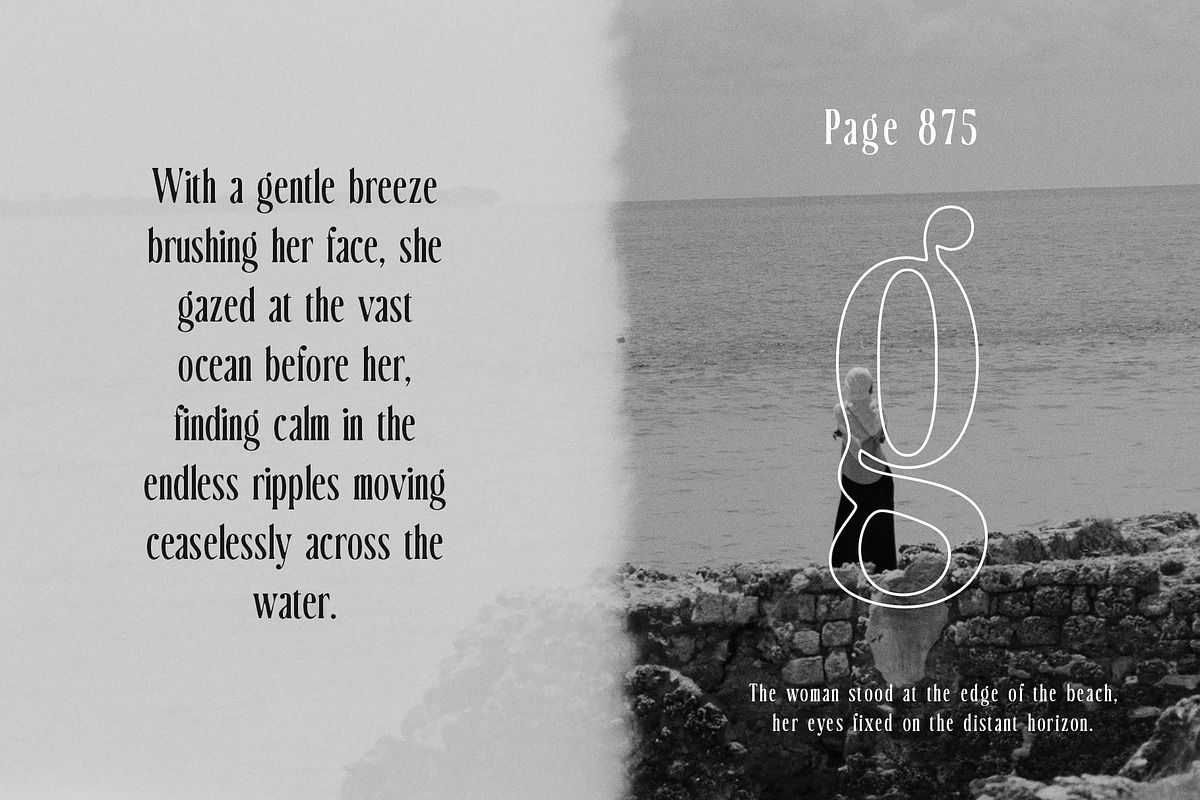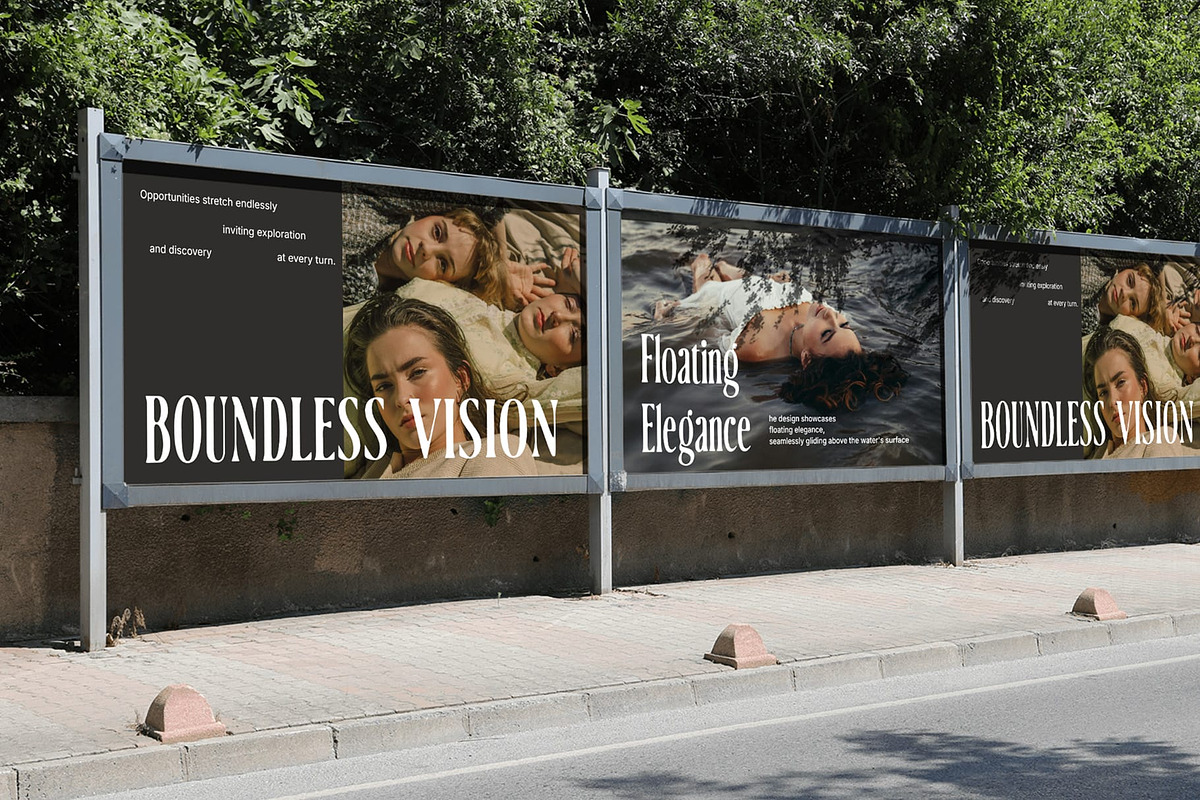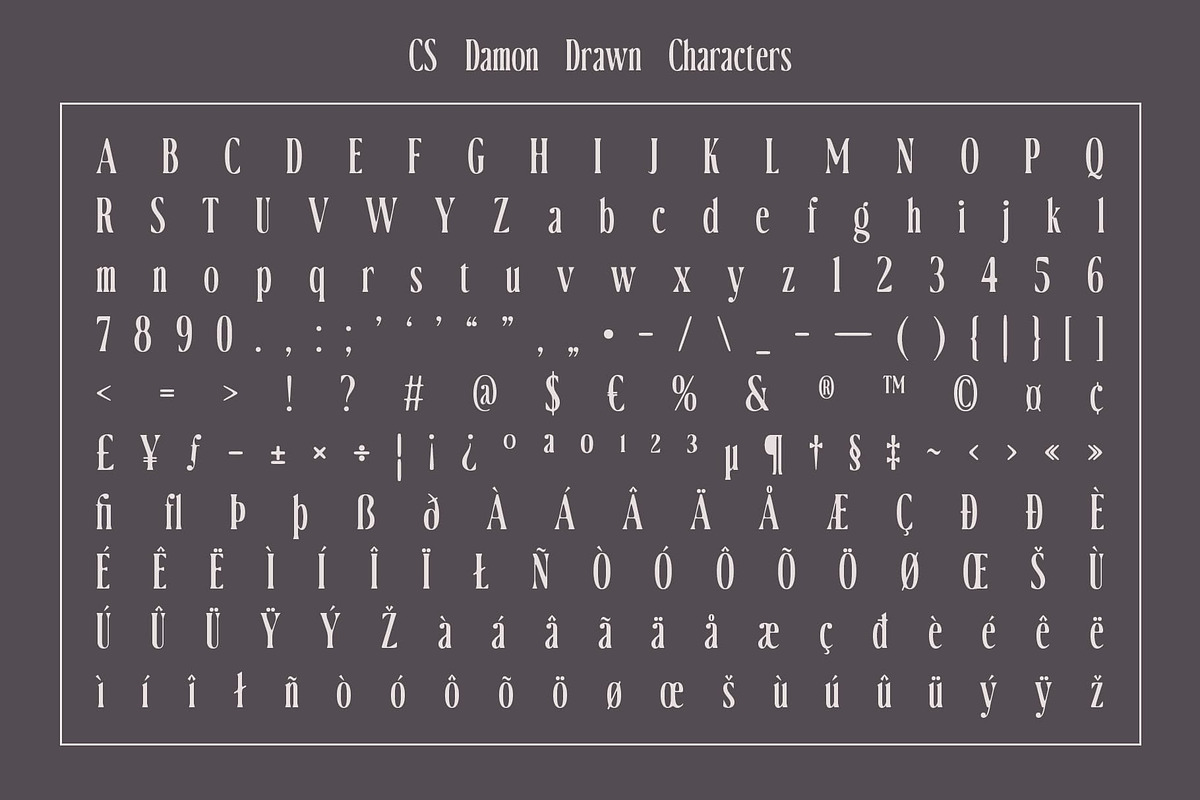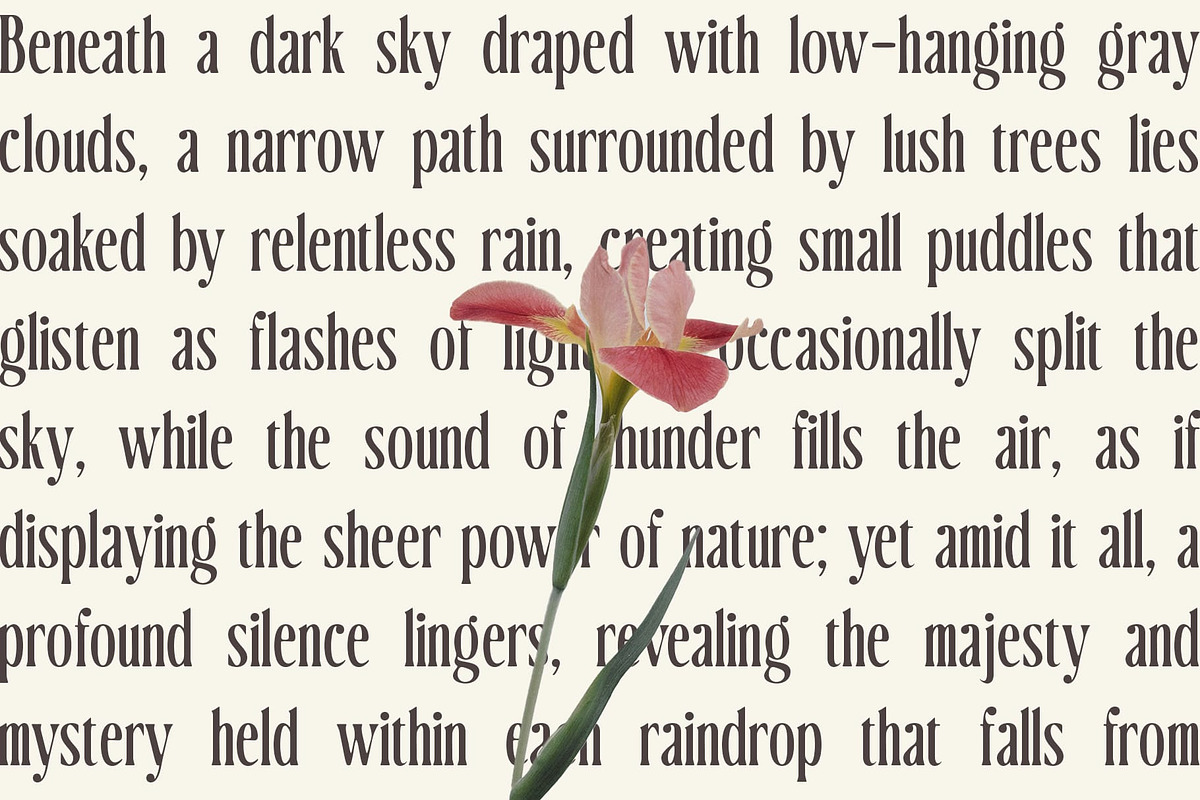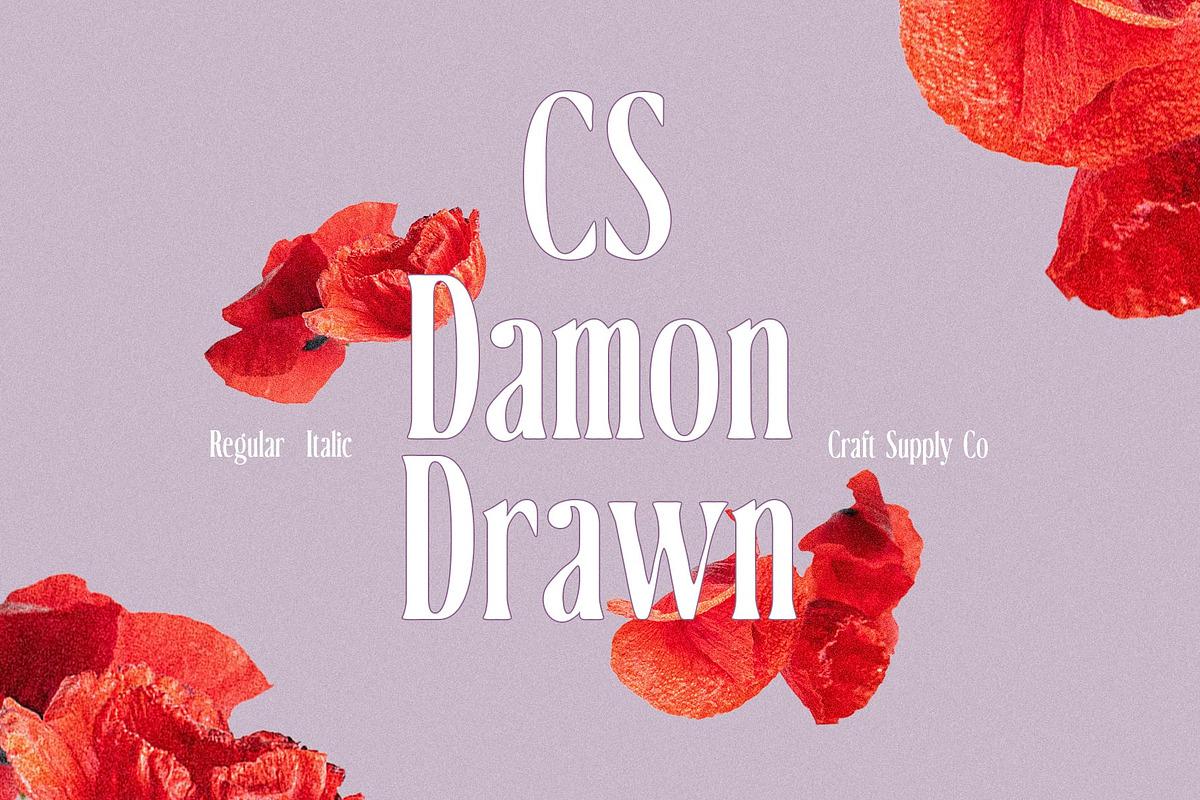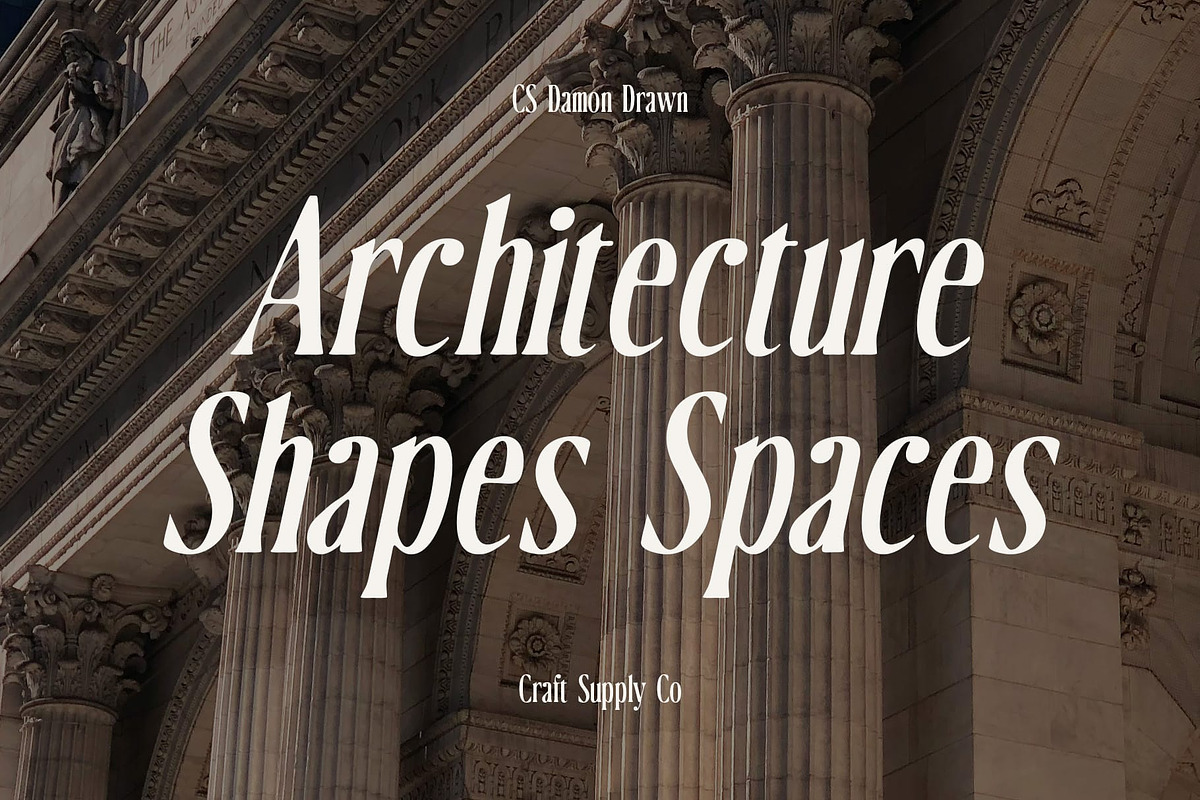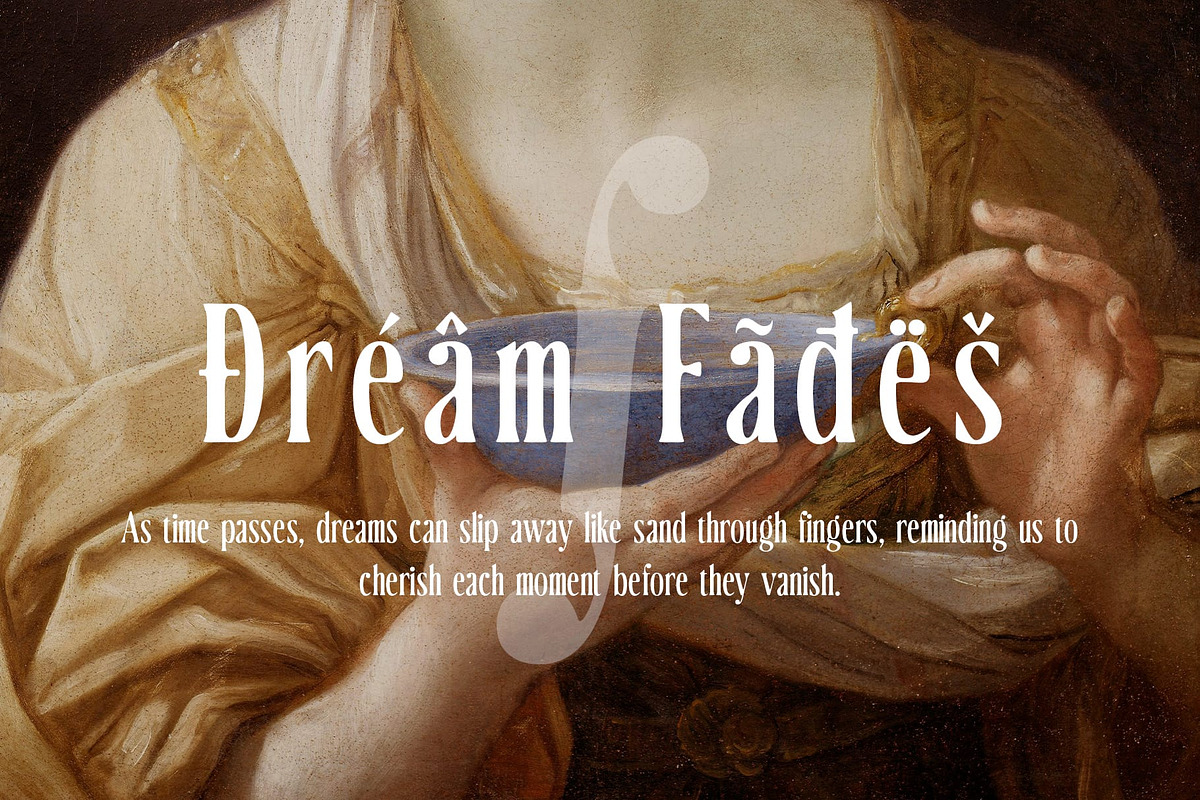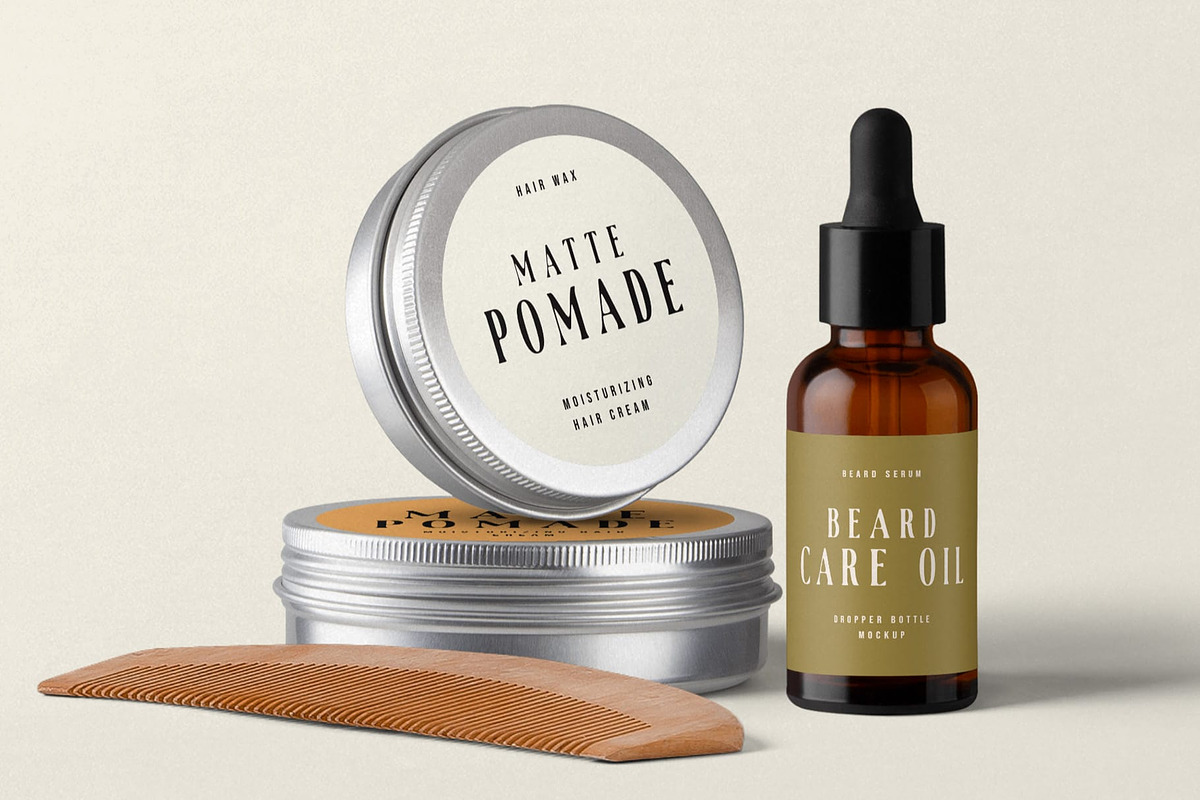
CS Damon Drawn
CS Damon Drawn – Retro Meets Modern with Organic Charm
A Condensed Serif Font with Nostalgic Elegance and Creative Flair CS Damon Drawn is a condensed serif font that perfectly balances classic design elements with a modern, creative twist. Its slim, compact letterforms exude strength, efficiency, and clarity, while the retro-inspired style adds a nostalgic touch. Drawing influence from vintage design aesthetics, the font combines timeless appeal with a unique contemporary personality, enhanced by a distinctive hand-drawn effect that adds warmth and depth to each character.
Sleek and Efficient with a Creative, Organic Touch The condensed structure of this drawn font makes it ideal for applications where space is limited but impact is crucial. The compact letterforms maximize space without sacrificing legibility, making it perfect for bold headlines, branding, and display text. The drawn effect infuses the font with an organic, hand-crafted quality, giving each letter an expressive and lively character that enhances its visual appeal.
Perfect for Retro-Inspired Branding and Creative Projects Ideal for a wide range of creative designs, this drawn font brings a fresh yet nostalgic vibe to your projects. Whether used in branding, posters, or any other design that requires a balance of modern energy and retro charm, this font ensures that your message stands out with personality and flair.